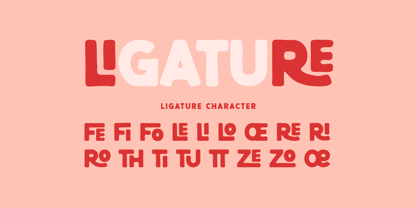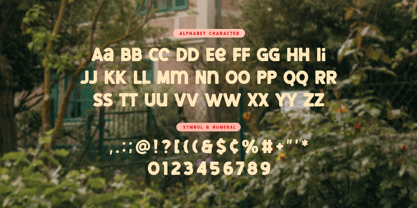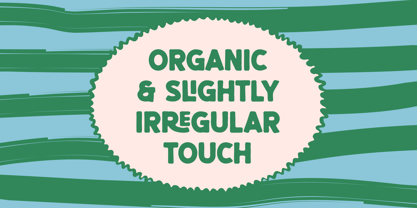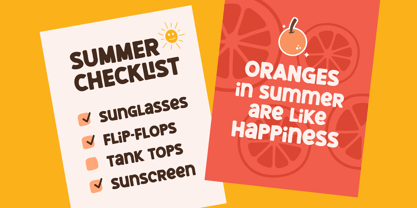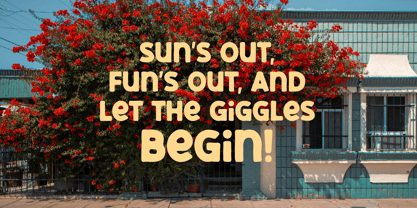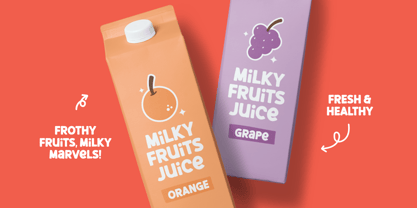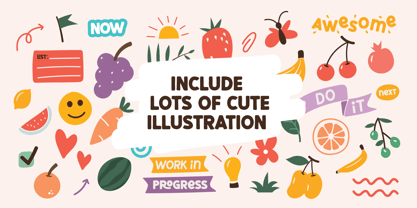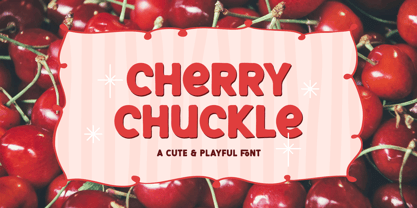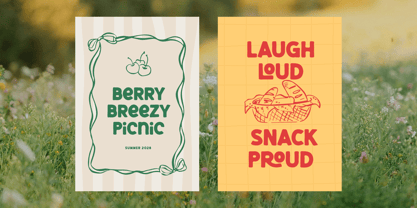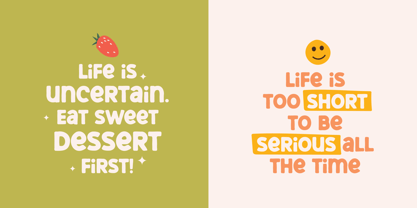
Cherry Chuckle
von Imoodev
Die Schriftfamilie Cherry Chuckle wurde von Aulia Savira Putri entworfen und von Imoodev veröffentlicht. Cherry Chuckle enthält 1 Stile. Mehr über diese Familie
Cherry Chuckle is a chunky, hand drawn display font that radiates warmth, joy and pure playfulness. With its soft, rounded letterforms and delightfully irregular shapes, it feels like each character was carefully sketched with a cheerful wink. Whether you're designing children's book covers, snack packaging, greeting cards, picnic posters or social media quotes, Cherry Chuckle brings an irresistible friendly vibe.
Designer: Aulia Savira Putri
Aktuelle Foundry: Imoodev